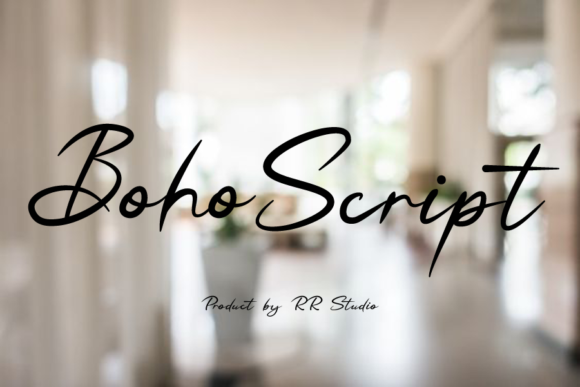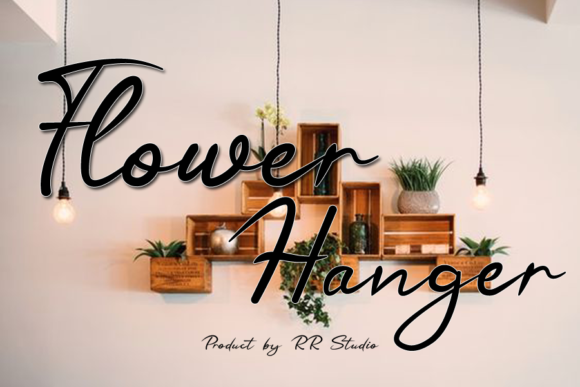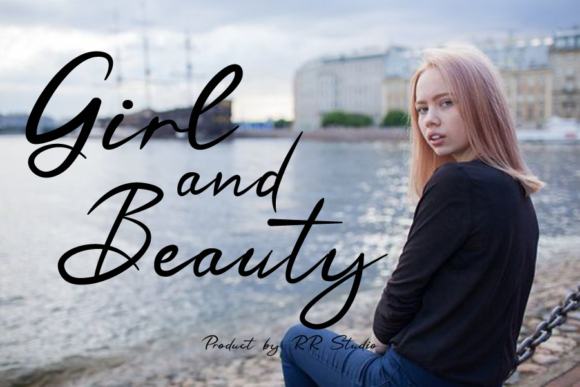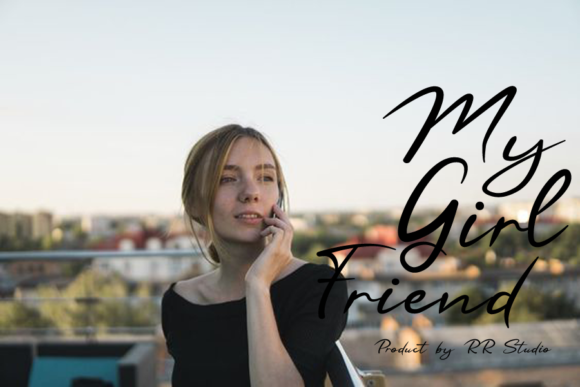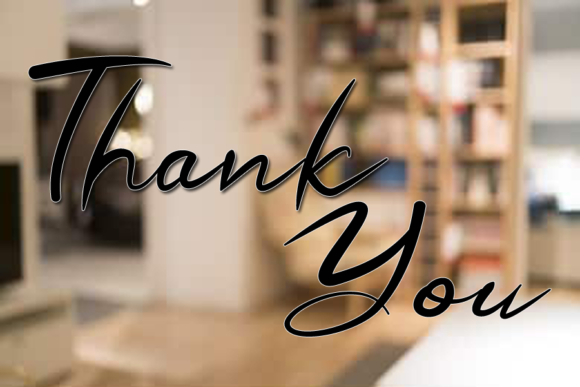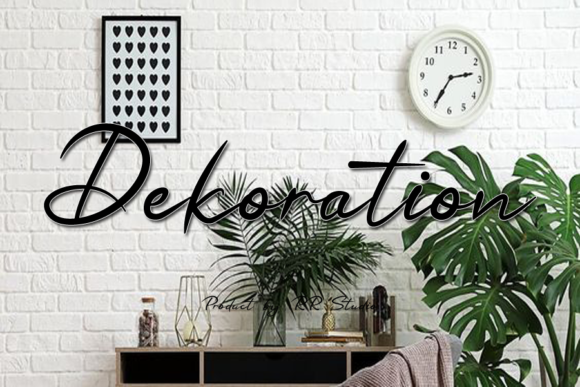
Boho Font
About Boho Font
“Boho” is a sweet and cursive handwritten font that exudes a gentle and charming quality. With its delightful script, this font is designed to look gorgeous on a variety of design ideas, bringing a joyful and romantic touch to each of your projects.
The sweetness of “Boho” lies in its cursive and handwritten style, which adds a personal and authentic feel to your designs. Imagine this font gracing a range of projects, from greeting cards to wedding invitations, where its gentle strokes contribute to a joyful and romantic atmosphere.
Picture “Boho” enhancing the look of a romantic quote, where its cursive script brings the words to life with a touch of charm. The font’s versatility makes it suitable for various creative endeavors, allowing it to adapt to different themes and moods.
Incorporate “Boho” into branding materials, and watch as its sweet and cursive design adds a unique flair to your visual identity. The font becomes a key element in creating a brand image that is not only aesthetically pleasing but also exudes a warm and welcoming vibe.
As you utilize “Boho” in your projects, let its gentle and charming handwritten style infuse a sense of joy and romance. Whether you’re working on invitations, quotes, or any design that calls for a touch of sweetness, this font becomes a delightful tool in expressing your creative vision.